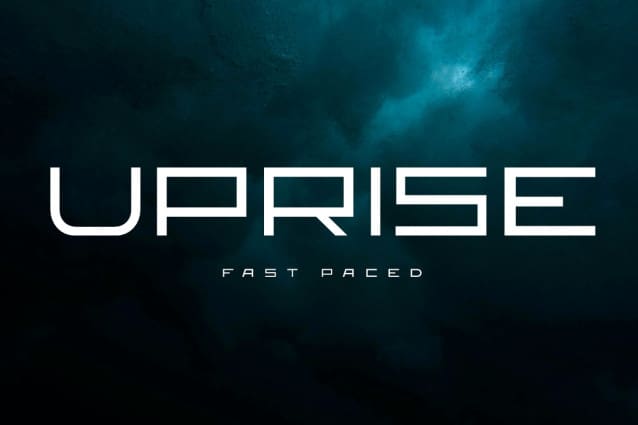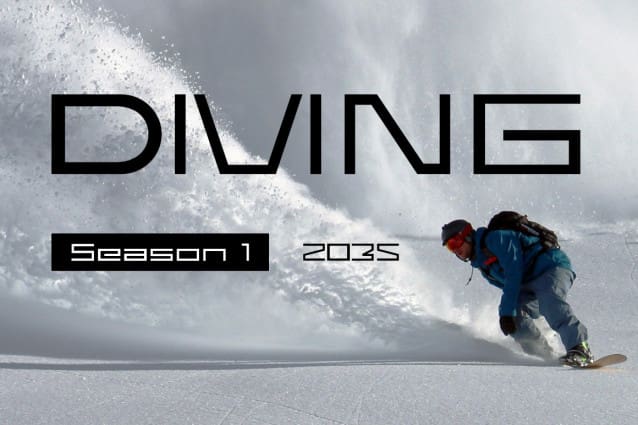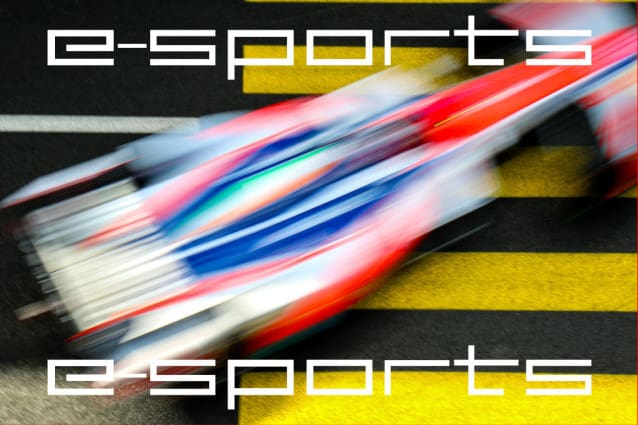
Ff Moon Semi Bold Font
Ff Moon Semi Bold Font is a futuristic font, a font inspired by the visual of technology that we can find from logo, sci-fi movies, games, and the present gadgets. Designed with minimalist style and unique letterforms, a perfect choice to use on logos, labels, posters, packaging, books, movies, presentations, games, and much more!
Explore the ‘ff Moon’ font family, featuring a comprehensive selection of weights to suit your design needs